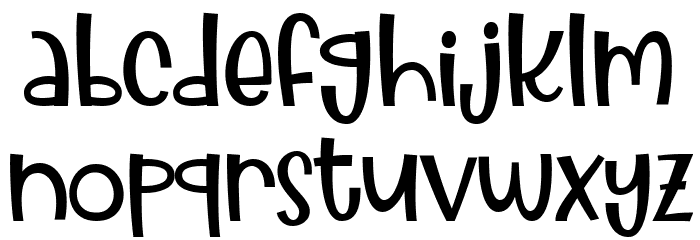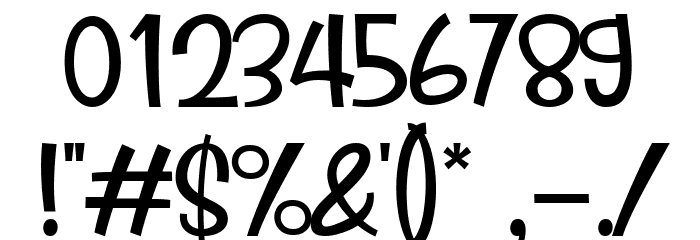
Jolly Rainbow Font
This playful and whimsical font features a hand-drawn style with a lively and energetic appearance. The letters are bold and slightly irregular, giving them a friendly and approachable feel. The uppercase and lowercase characters maintain a consistent style, with rounded edges and a slight tilt that adds to the casual vibe. Numbers and special characters are designed to match the overall aesthetic, making the font versatile for various creative projects. The strokes are thick and uniform, providing a strong visual presence without overwhelming the design. This font is perfect for projects that require a fun and informal touch.
A playful, hand-drawn font with bold, rounded characters and a whimsical style.
- Proposed Projects: Ideal for children's books, greeting cards, playful branding, and social media graphics.
- Overall Style: Playful